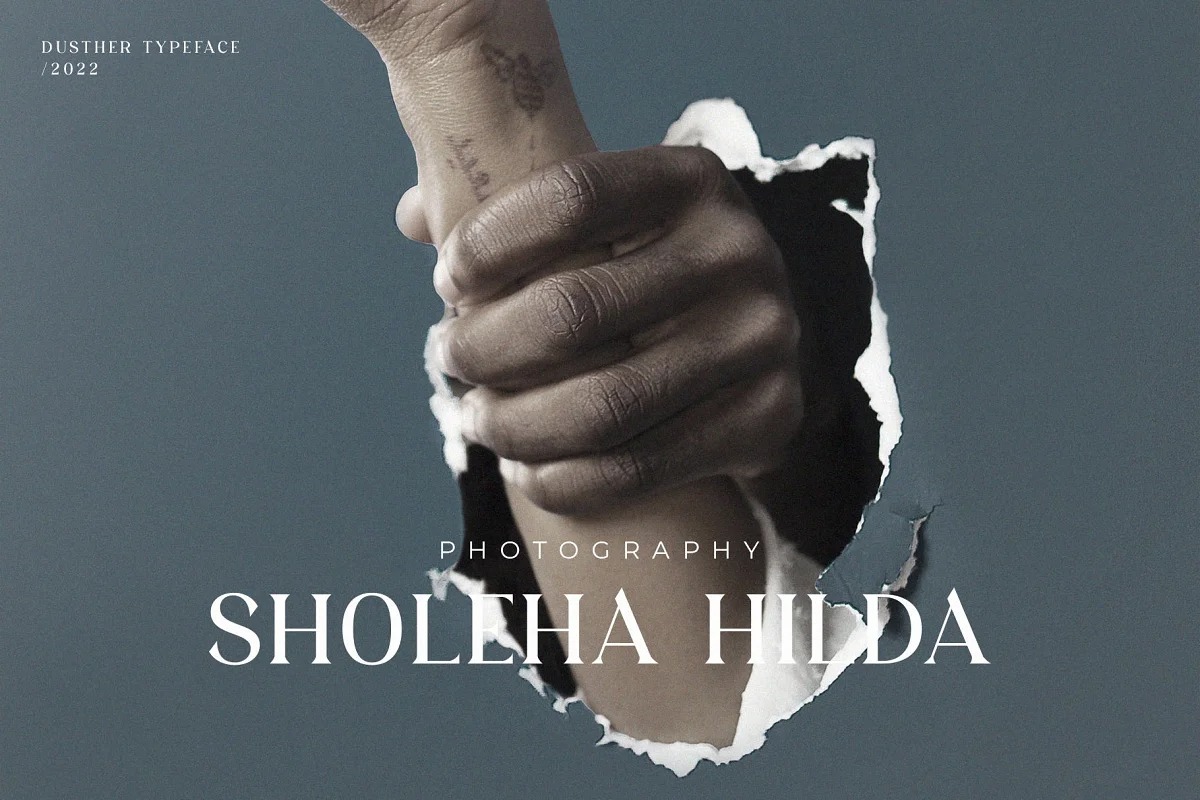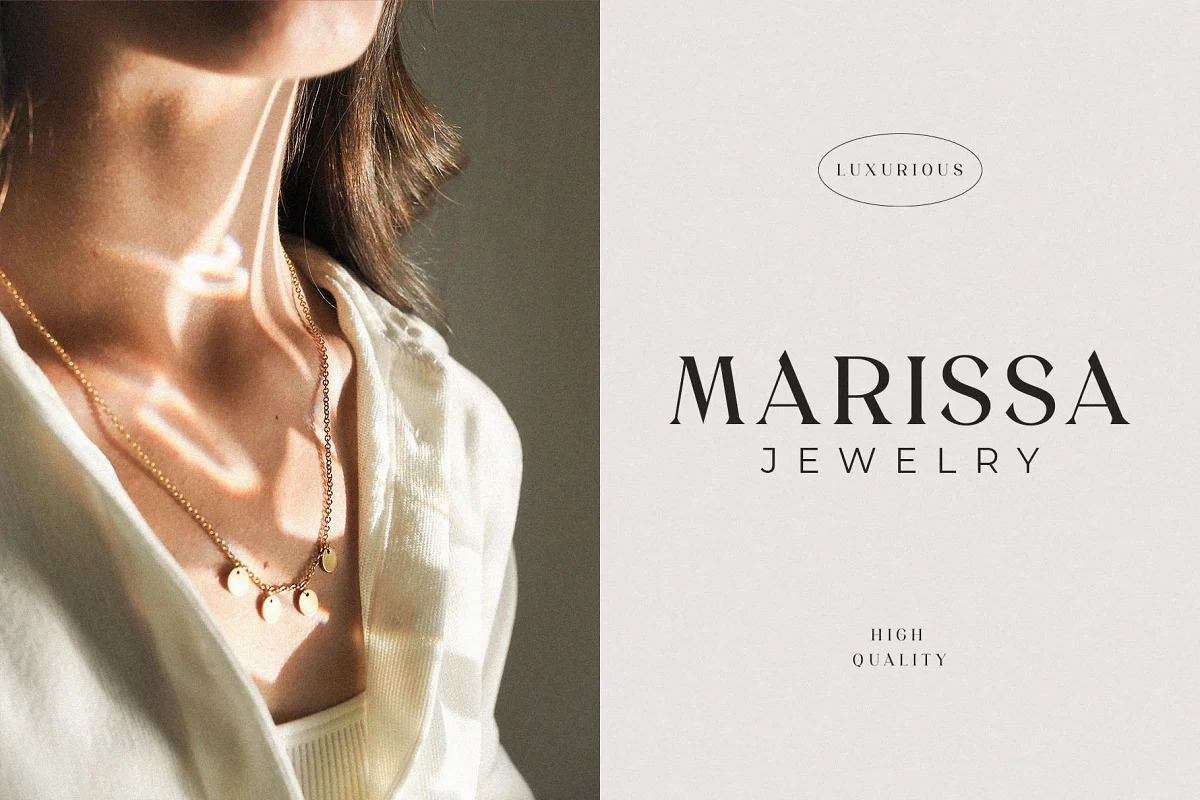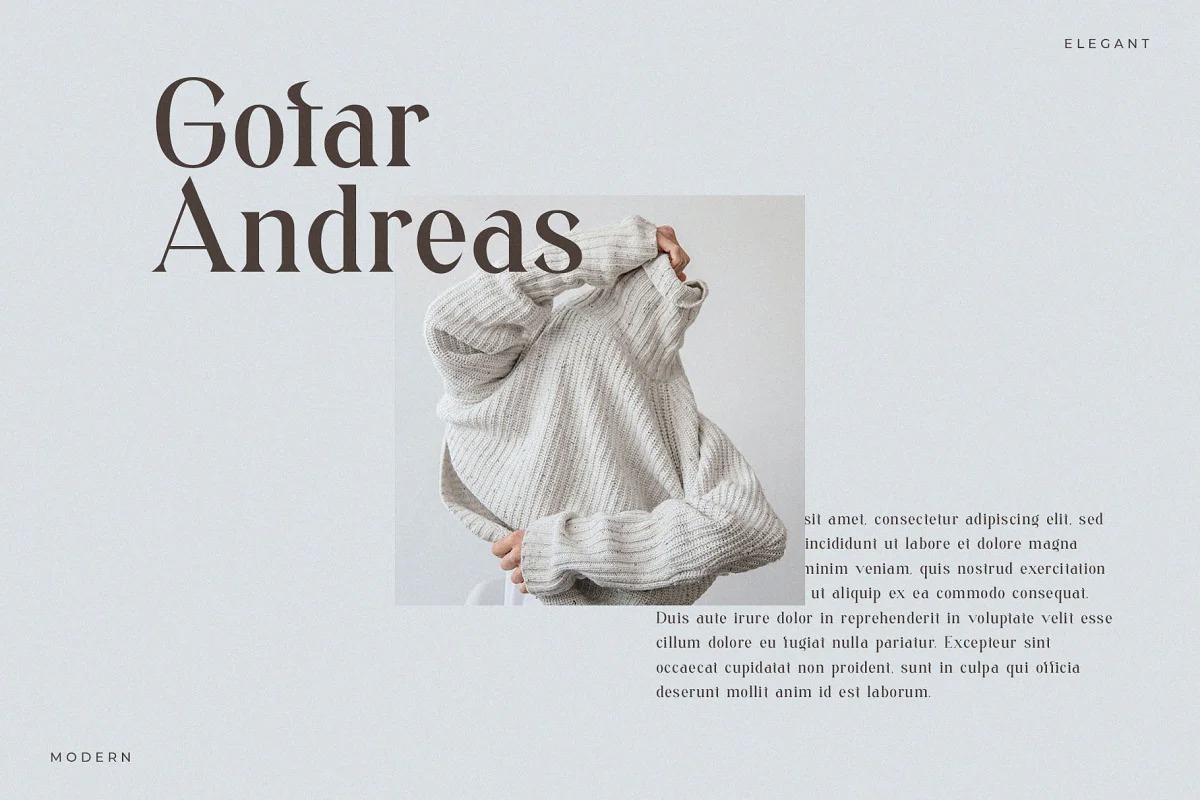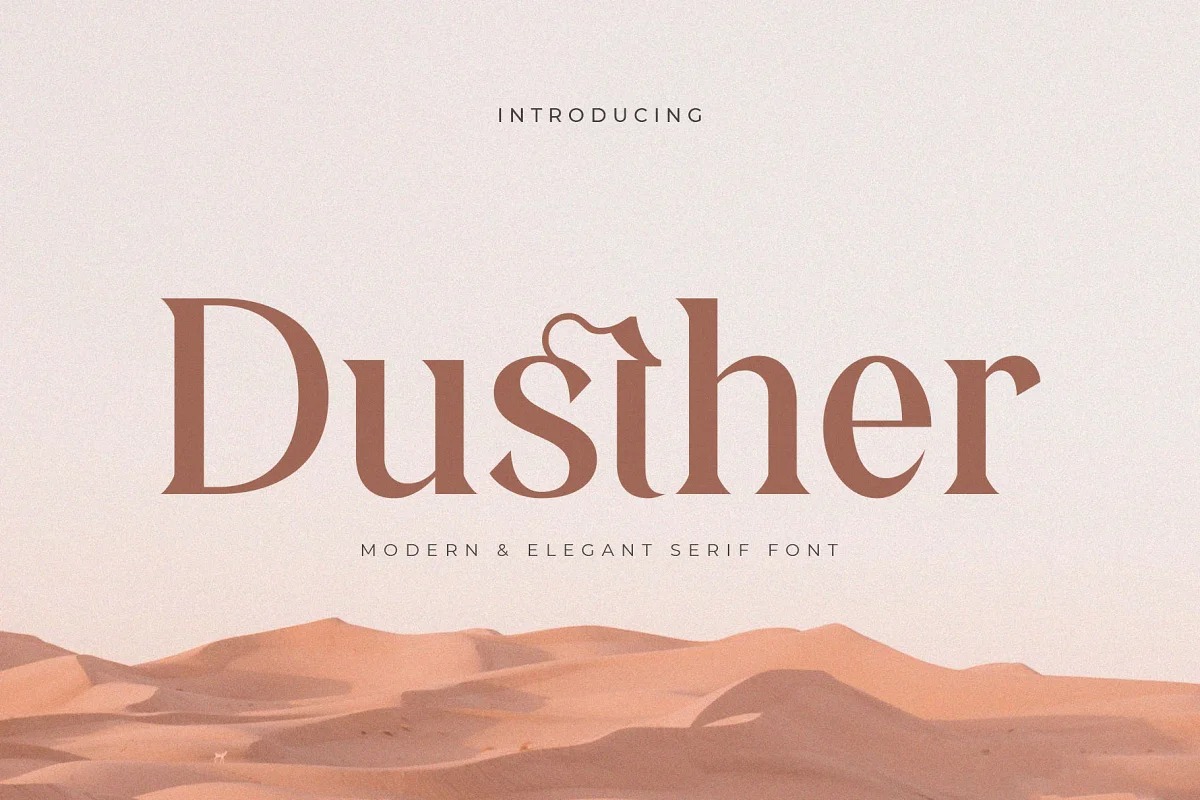
Dusther Serif Font
This Typeface designed by BrandSemut is an elegant, thin lettered and distinct serif font, best used as a display for headings, logos, branding, magazines, product packaging and invitations. Dusther come with clean lines and smooth curves give any project an extra touch of class.